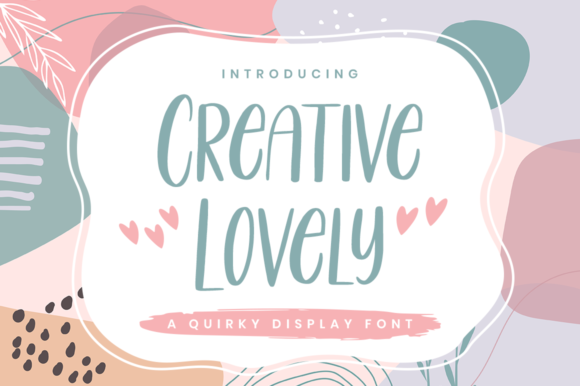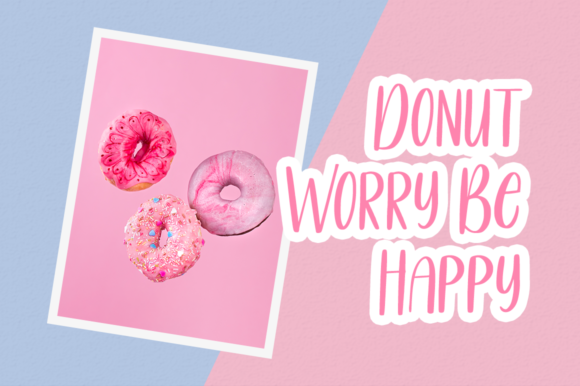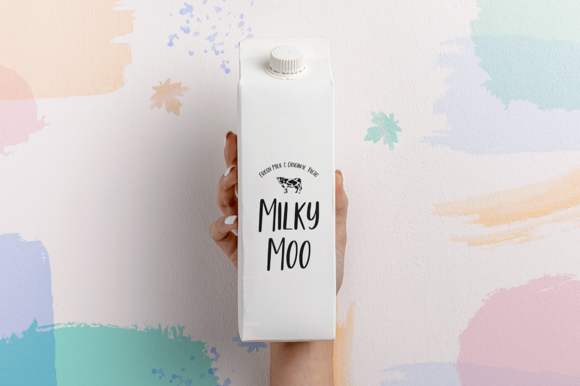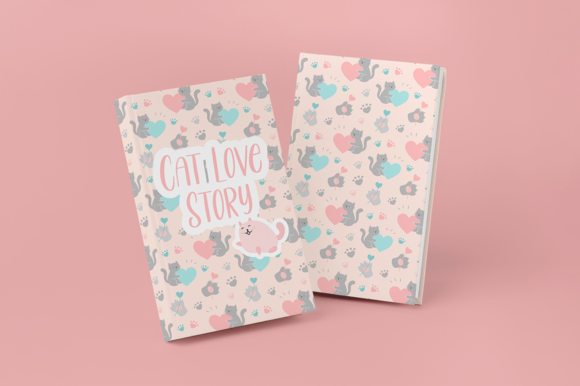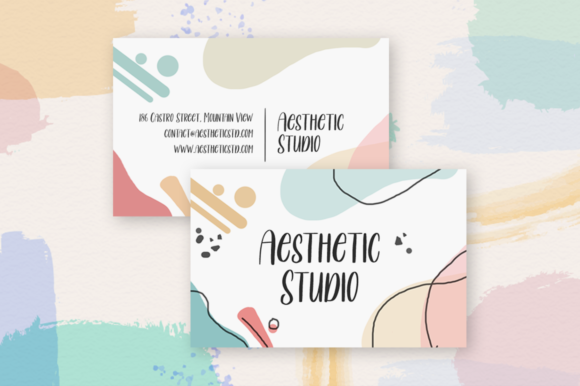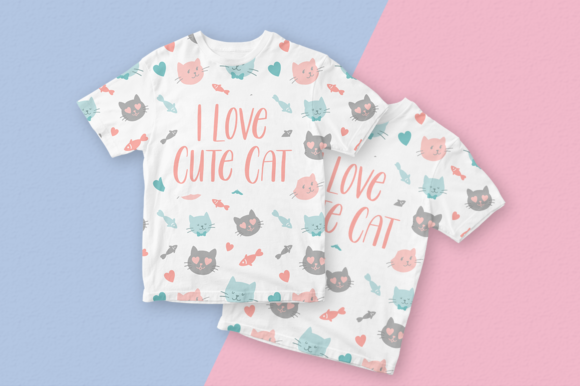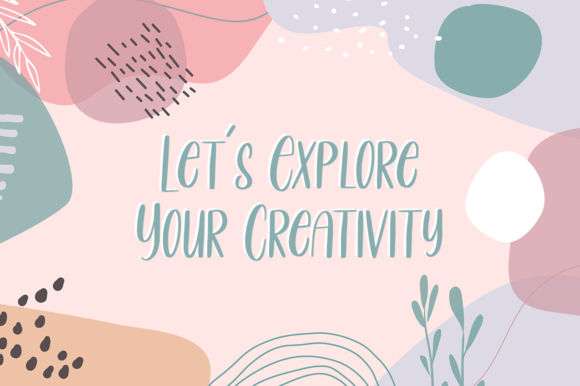
When Words Become Art: The Magic of Creative Lovely Font
Have you ever sat down with a blank sheet of paper, a pen in hand, and let your imagination run wild? For designers and creatives, those moments of pure inspiration are what drive us to push the boundaries of our craft. And that’s exactly what we’re about to dive into – a world where words become art, and the Creative Lovely Font is the perfect tool to bring your vision to life.
Meet the Creative Lovely Font, a beautifully crafted handwritten font that exudes elegance and sophistication. This enchanting font is perfect for creating stunning wedding invitations, beautiful stationery, eye-catching social media posts, and so much more. With its authentic feel, you’ll be able to express your unique style and personality in a way that resonates with your audience.
As a designer, you know how valuable it is to have the right tools at your disposal. The Creative Lovely Font is no exception – it’s a game-changer for any project that requires a touch of whimsy and charm. Whether you’re a seasoned pro or just starting out, this font is sure to inspire you to new heights of creativity and imagination.
Creative Lovely Font Key Features
- Font Family: Creative Lovely Font is a sans-serif font family with 6 styles, including Light, Regular, Medium, Bold, Extra Bold, and Black.
- Character Set: Includes a wide range of characters, including Latin, Cyrillic, and Greek alphabets, as well as punctuation and symbols.
- Unique Characteristics: Features a unique blend of modern and elegant styles, with subtle rounded edges and a refined feel.
Design Review: Creative Lovely Font
Overall, I have mixed feelings about this font. Here are my thoughts:
- The font has a unique and playful style that’s perfect for creative projects.
- The letterforms are well-designed, with nice curves and subtle flourishes.
- The font is highly legible, even at small sizes, which makes it suitable for body text.
- The font may not be the best choice for formal or professional projects, as it has a more casual feel.
- The font’s unique style may not appeal to everyone, and some users may find it too whimsical.
- The font lacks a bold weight, which may limit its use in headings or titles.
Overall, I think the Creative Lovely Font is a great choice for creative projects that need a playful touch. However, it may not be the best fit for more formal or professional projects. With a bit more development, I think this font has the potential to be a real showstopper.
Tips for Getting the Most Out of Creative Lovely Font
Use Creative Lovely Font for:
- Photography and art projects
Experiment with different font sizes, colors, and styles to add visual interest to your design.
Alternatives to Creative Lovely Font
Lato is a modern sans-serif font suitable for body text, headings, and titles. It’s highly legible and versatile, making it perfect for use in digital products, magazines, and websites. Lato has a more geometric and clean appearance compared to Creative Lovely Font, which is more ornate and decorative.
Montserrat is a geometric sans-serif font ideal for headings, titles, and short texts. It’s highly legible and has a strong, urban feel. Montserrat is more condensed and has a more modern appearance compared to Creative Lovely Font, which has a more classic and elegant look.
Abril Fatface is a elegant and luxurious script font suitable for titles, headings, and short texts. It’s perfect for use in high-end branding, packaging, and advertising materials. Abril Fatface has a more refined and sophisticated appearance compared to Creative Lovely Font, which is more playful and whimsical.